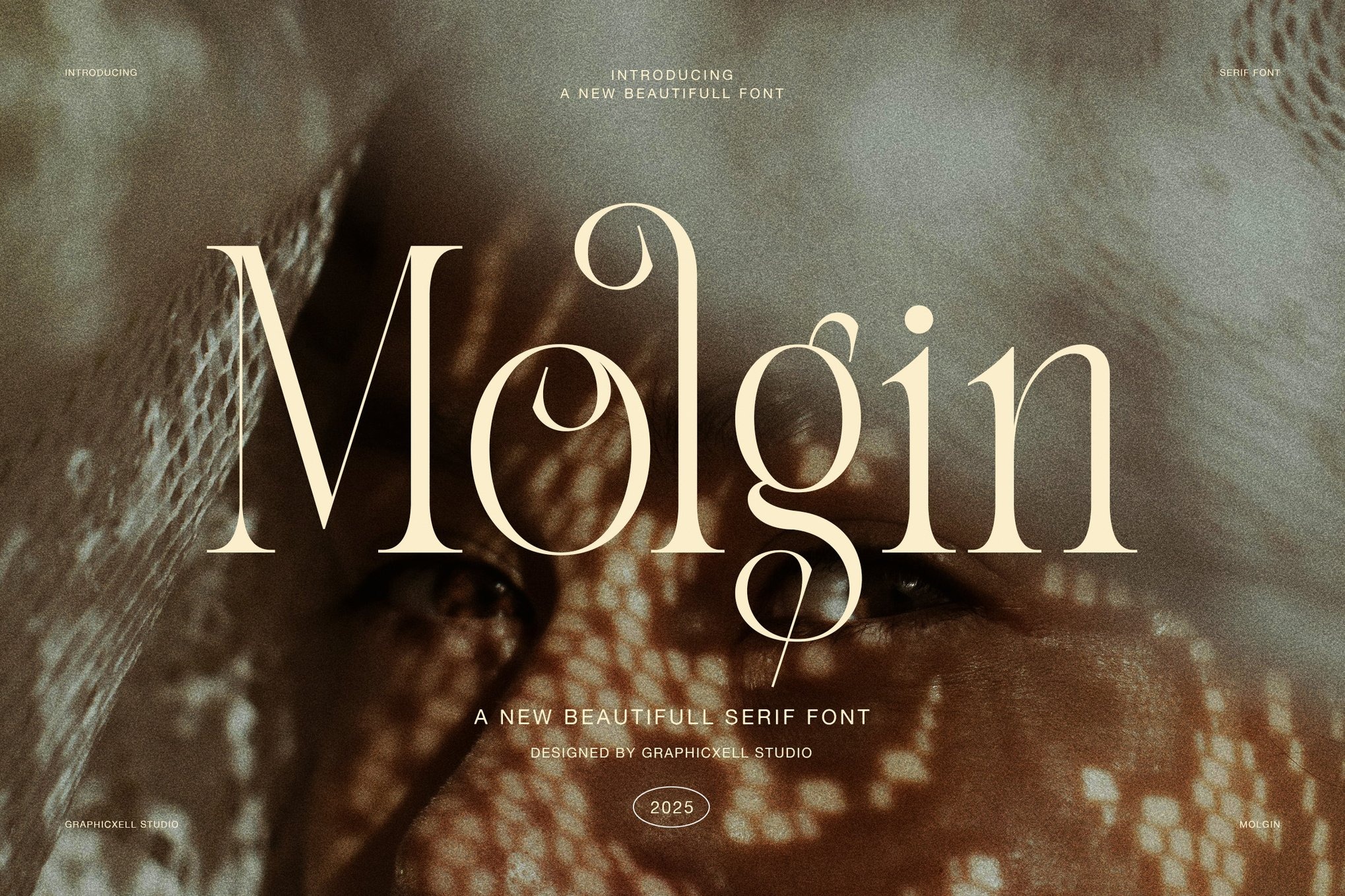
Molgin Font
Molgin Font is a distinctive and expressive font crafted to bring personality, structure, and creative energy into your projects. Molgin Font is an elegant, modern serif typeface created to express contemporary refinement, warmth, and luxury. It features graceful curves, balanced contrast, and decorative alternatives that are both artistic and controlled. Because each letter appears intentional, Molgin offers beauty without sacrificing legibility.
This serif typeface combines a classic editorial structure with a modern, soft aesthetic. As a result, designers choose Molgin for fashion editorials, interior branding, and lifestyle visuals. Furthermore, the elegant variants add personality while keeping compositions clean and harmonious. Each glyph supports a calm and sophisticated rhythm.